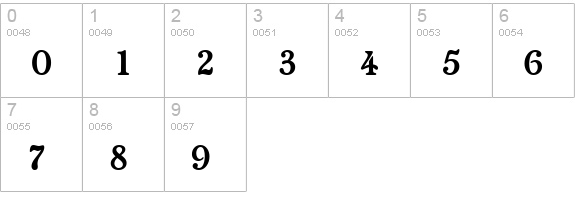
Cheboygan font is a beautifully crafted typeface that exudes elegance and sophistication. Its sleek and modern design makes it perfect for a wide range of projects, from branding to editorial design. The clean lines and unique details of Cheboygan font give it a timeless appeal that is sure to make your work stand out. One of the best things about Cheboygan font is that it is completely free to download. You can easily access this stunning typeface at FontsMarket.com, where you can find a wide selection of high-quality fonts for all your design needs. Whether you are working on a print project or a digital design, Cheboygan font is sure to add a touch of class and style to your work. With its versatile and eye-catching design, Cheboygan font is a must-have for any designer looking to make a statement. Download it for free today and take your projects to the next level with this elegant and sophisticated typeface.